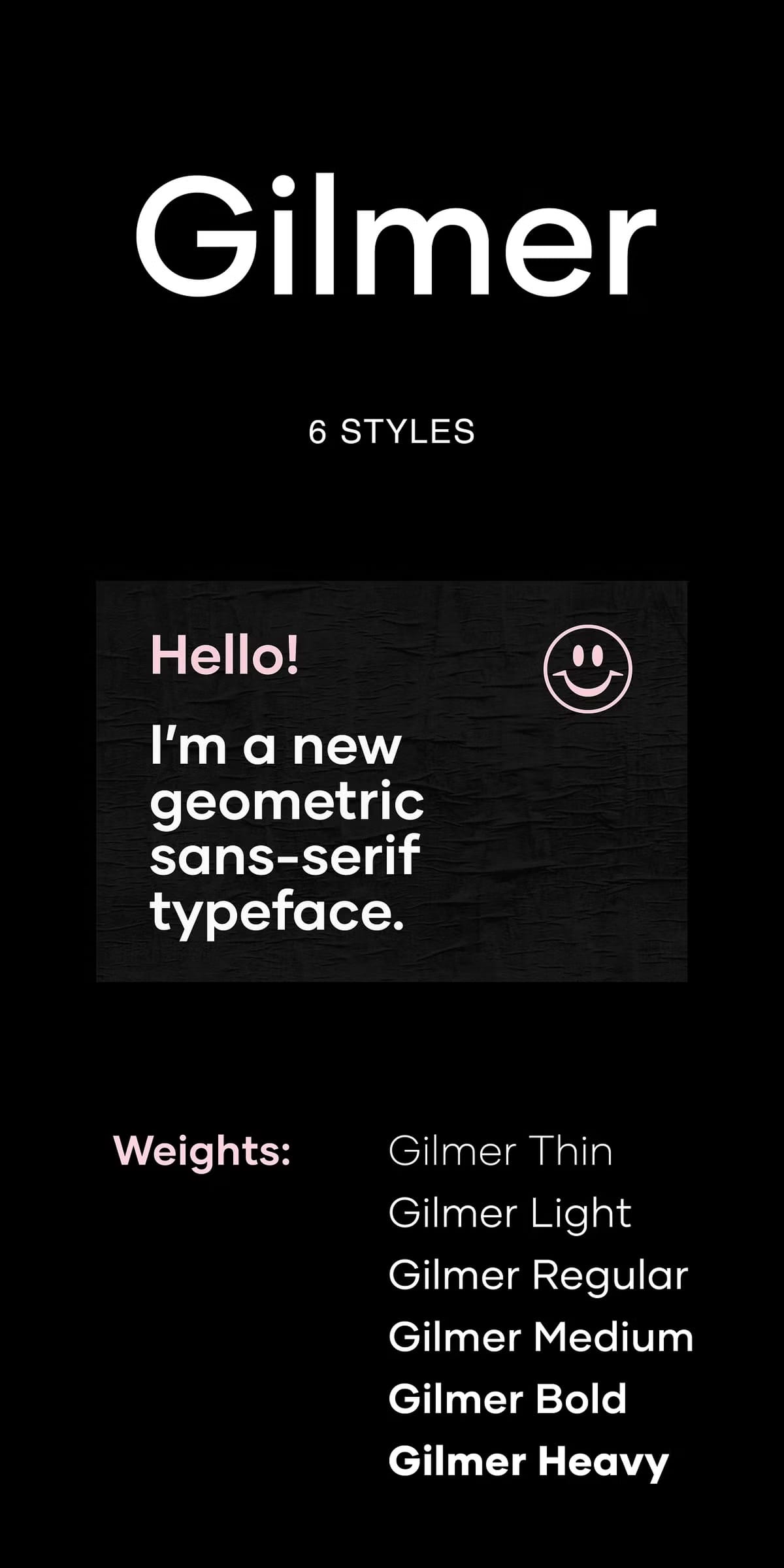
Unleash your creativity with Gilmer, a modern geometric sans-serif font family that draws inspiration from iconic typefaces such as Futura and Avant Garde. Designed for versatility and clarity, Gilmer is perfect for a wide range of design applications, from branding to editorial layouts.
Key Features of Gilmer
Gilmer stands out with its unique characteristics that make it an essential addition to any designer’s toolkit. Here are some of the standout features:
- Geometric Design: The clean lines and geometric shapes of Gilmer create a contemporary look that is both stylish and functional.
- Large X-Height: With a significant x-height, Gilmer enhances readability, making it ideal for both print and digital media.
- Versatile Styles: The font family includes multiple weights and styles, allowing for flexibility in your designs. Whether you need a bold headline or a subtle body text, Gilmer has you covered.
- Multilingual Support: Gilmer is designed to accommodate a variety of languages, ensuring that your designs can reach a global audience.
- Perfect for Pairing: The geometric nature of Gilmer makes it an excellent choice for pairing with other typefaces, adding depth and contrast to your typography.
Why Choose Gilmer for Your Design Projects?
Gilmer is not just another font; it is a powerful design tool that can elevate your projects to new heights. Its modern aesthetic and high legibility make it suitable for a variety of applications, including:
- Branding: Create a strong brand identity with Gilmer’s clean and professional appearance.
- Editorial Design: Use Gilmer in magazines, brochures, and other print materials to ensure your text is both attractive and easy to read.
- Web Design: The font’s clarity and modern style make it perfect for websites and digital content, enhancing user experience.
- Advertising: Capture attention with bold headlines and clear messaging using Gilmer in your advertising campaigns.